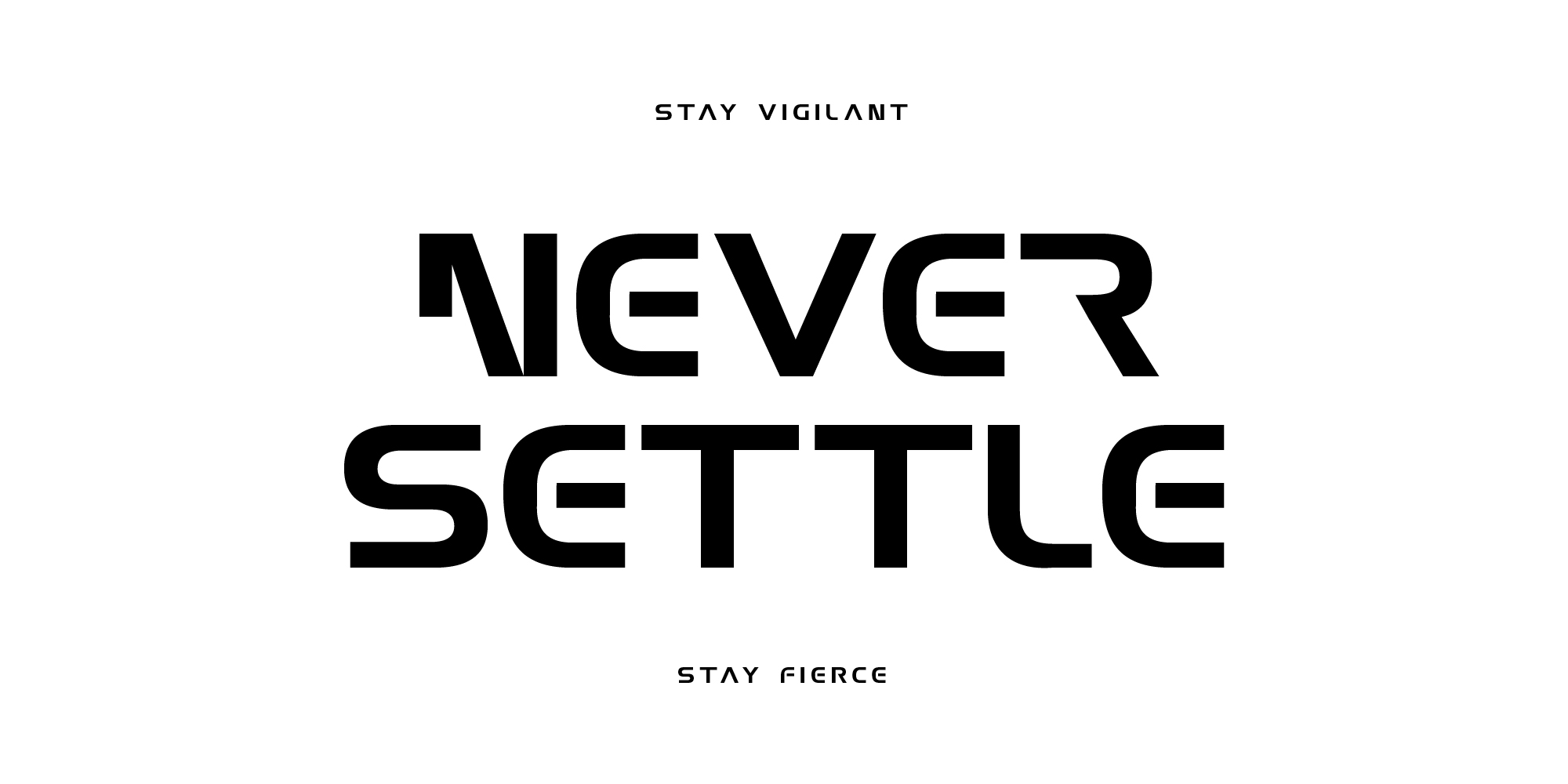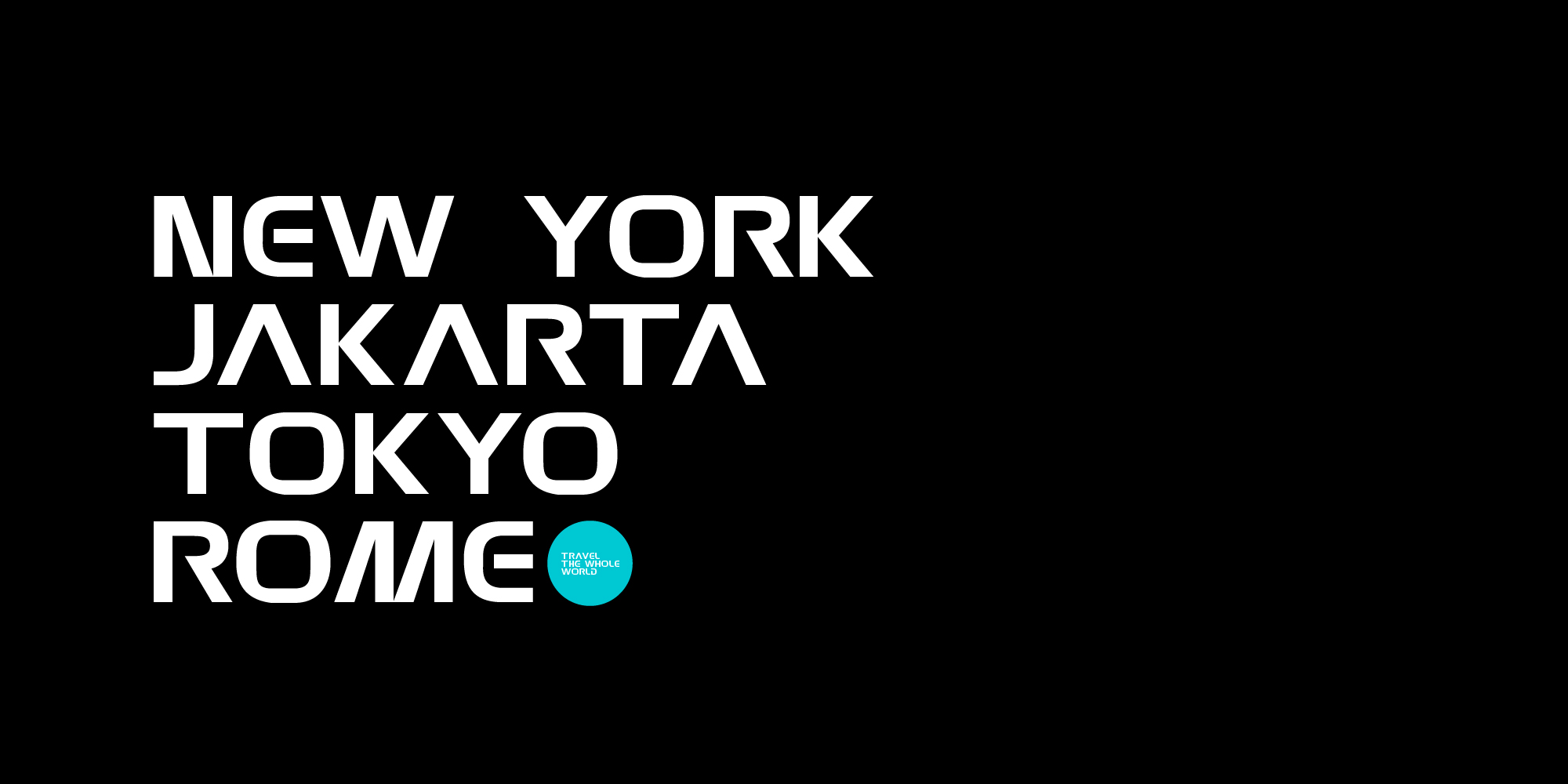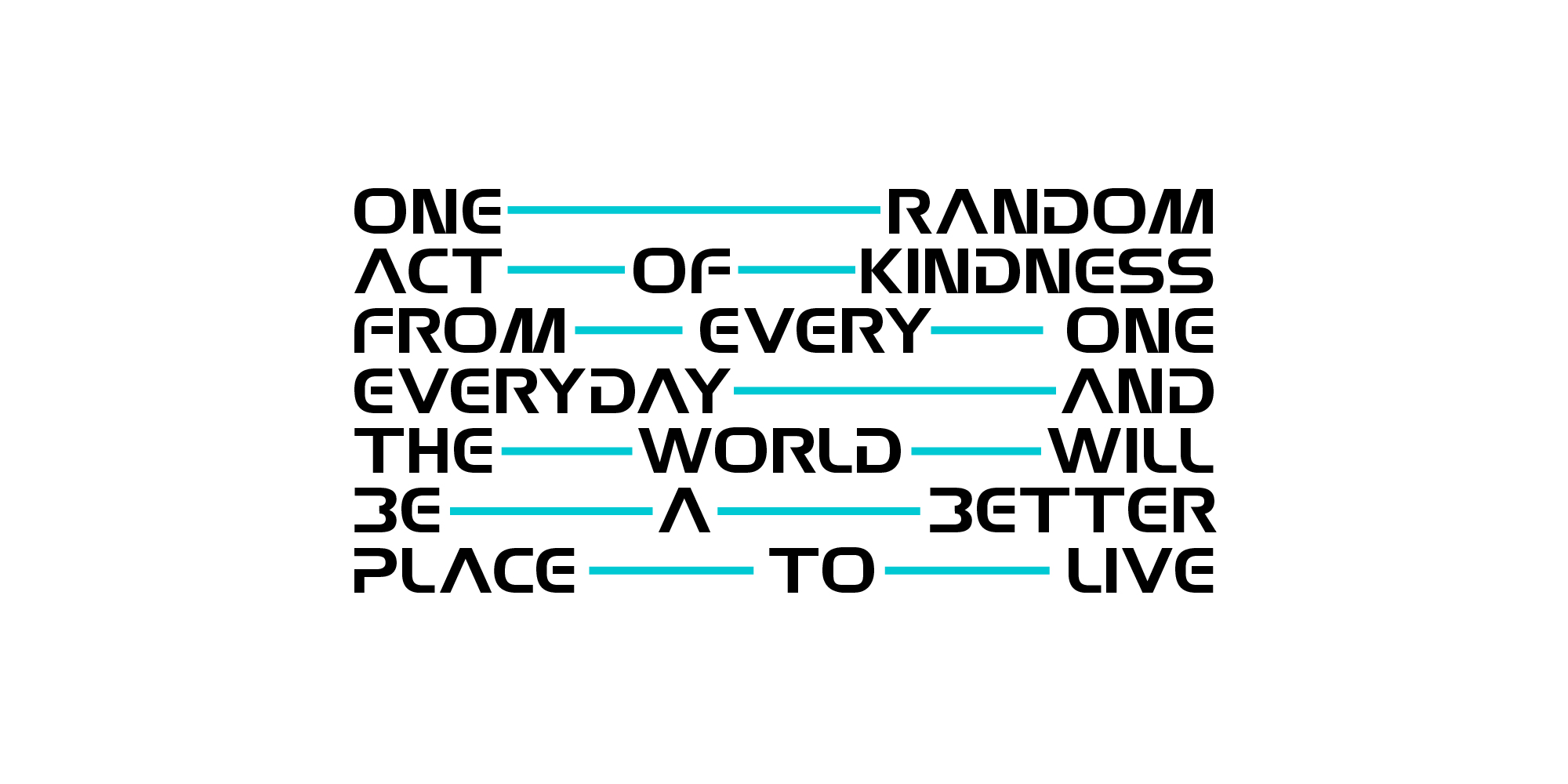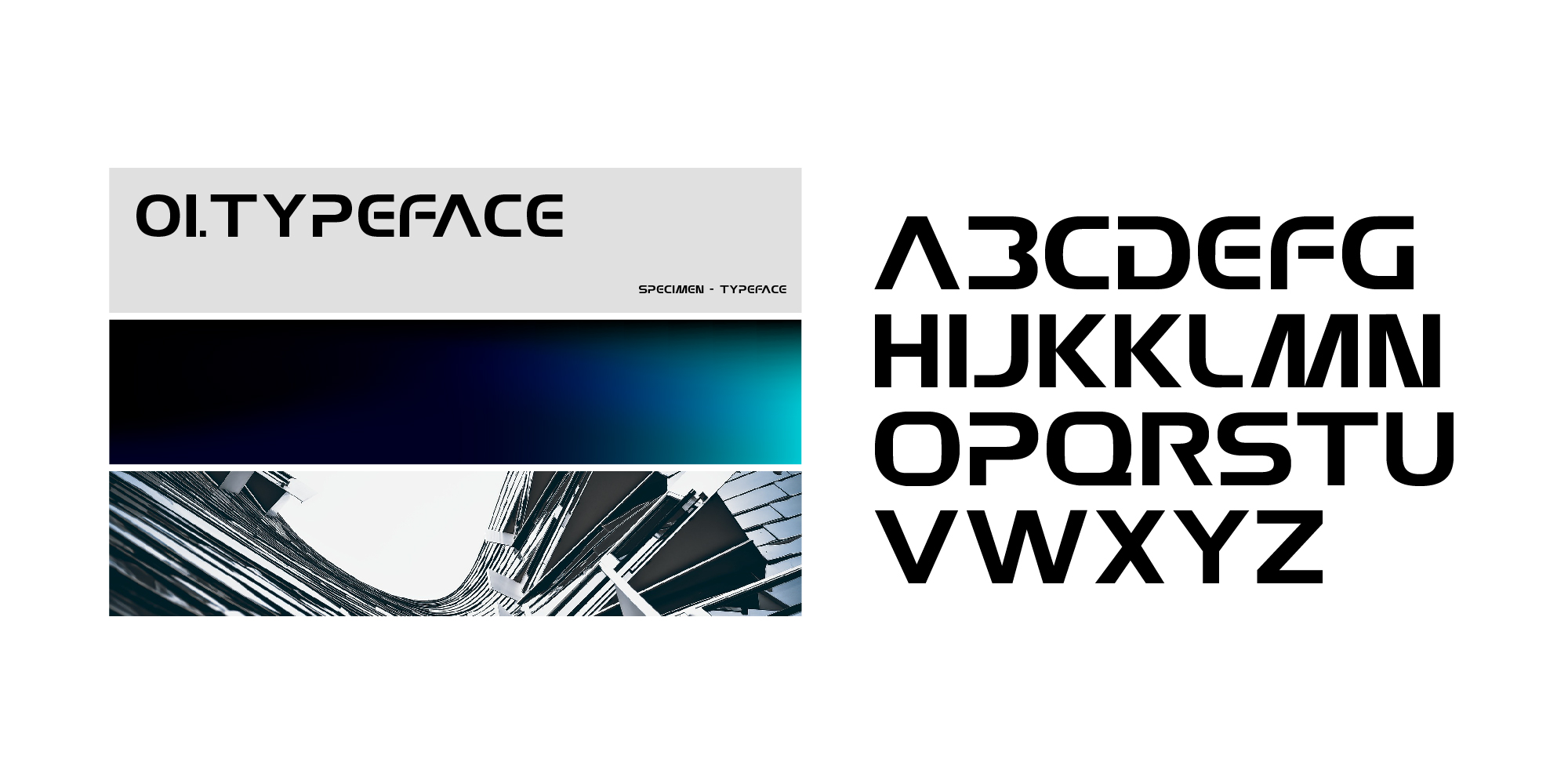
MBF Exodrone
Choreography of drones in the night sky is now doable
Exodrone is a modern futuristic scifi font. Intended to be used as a logo or wordmark, this typeface consist of all uppercase, alphabet and numbers only.